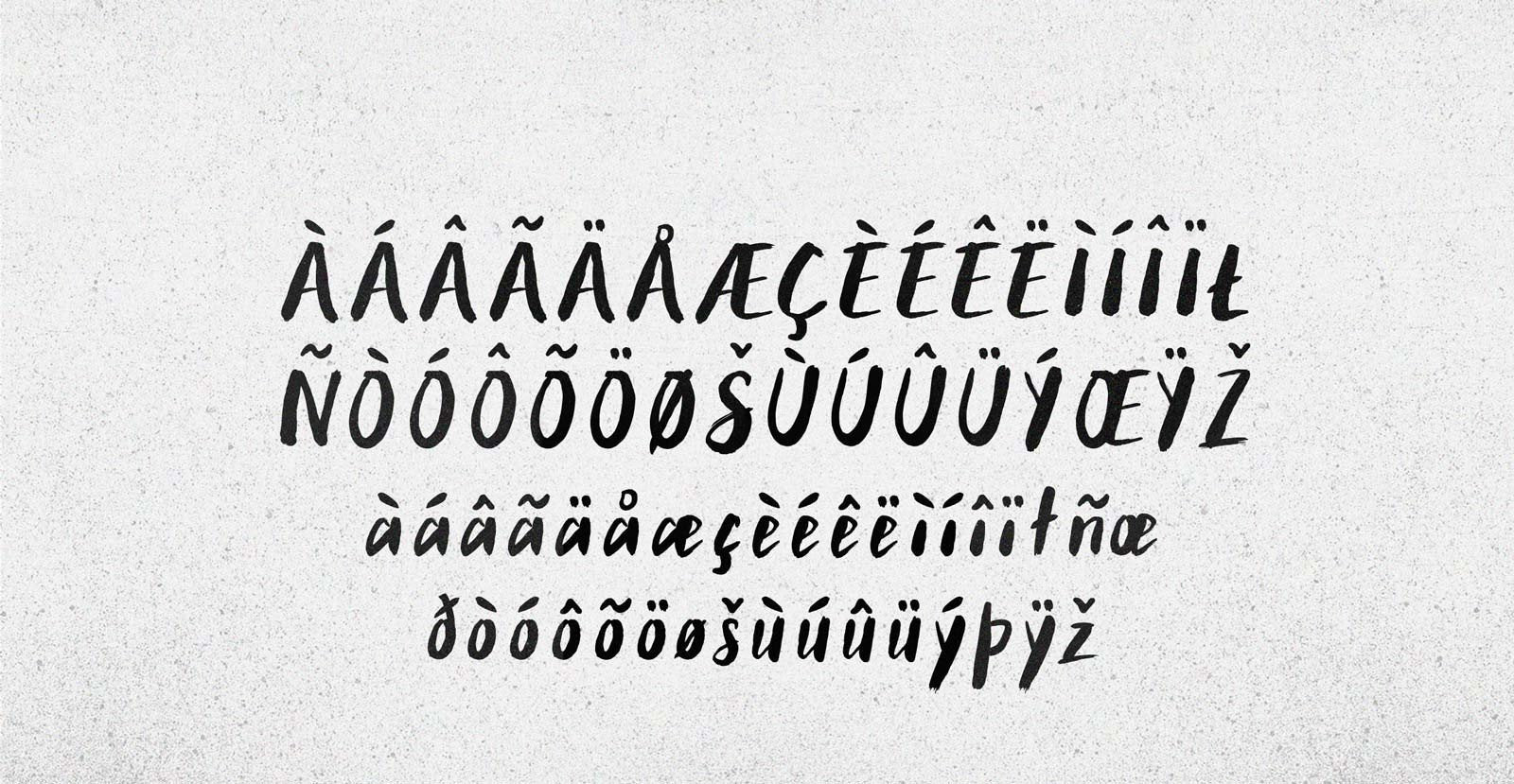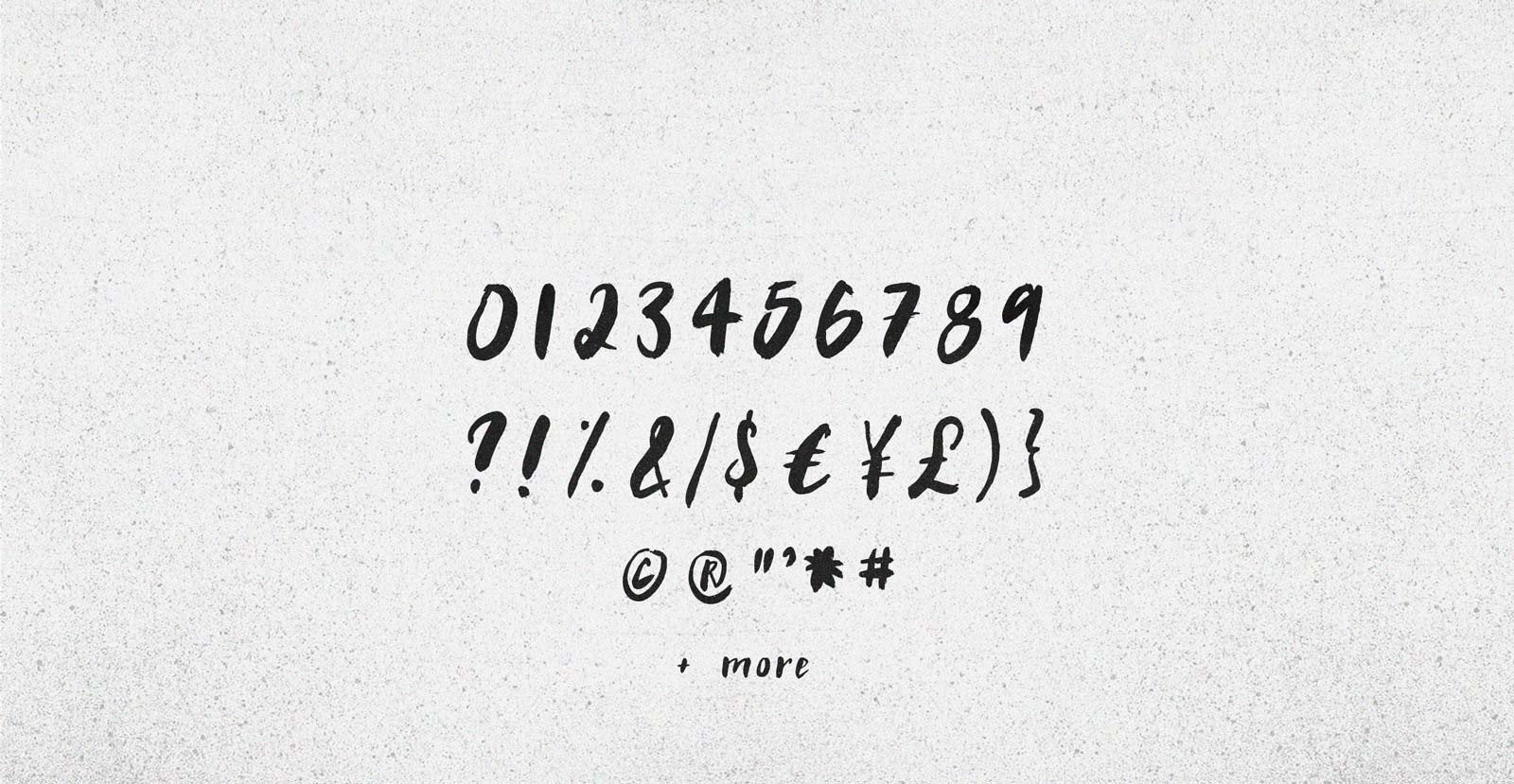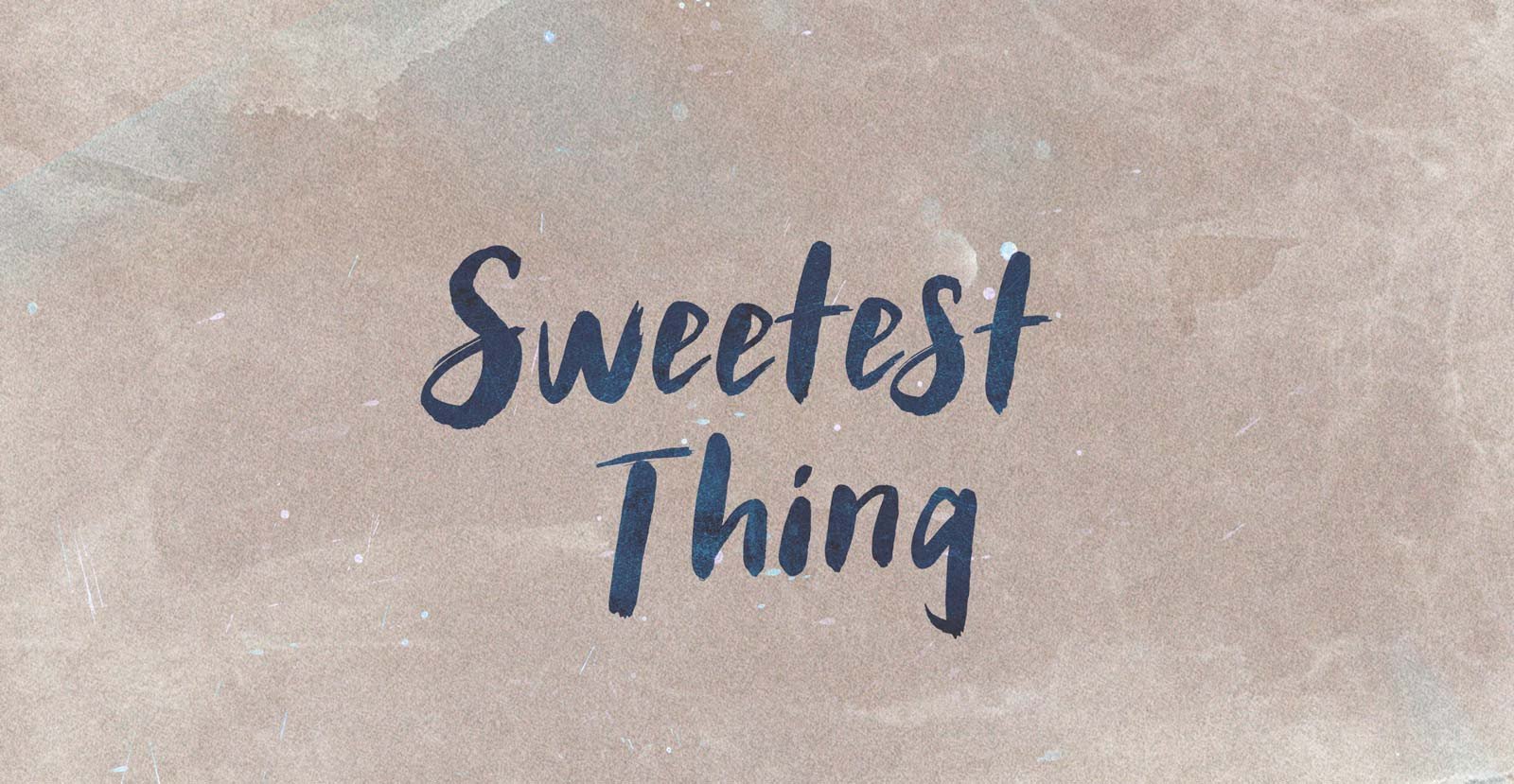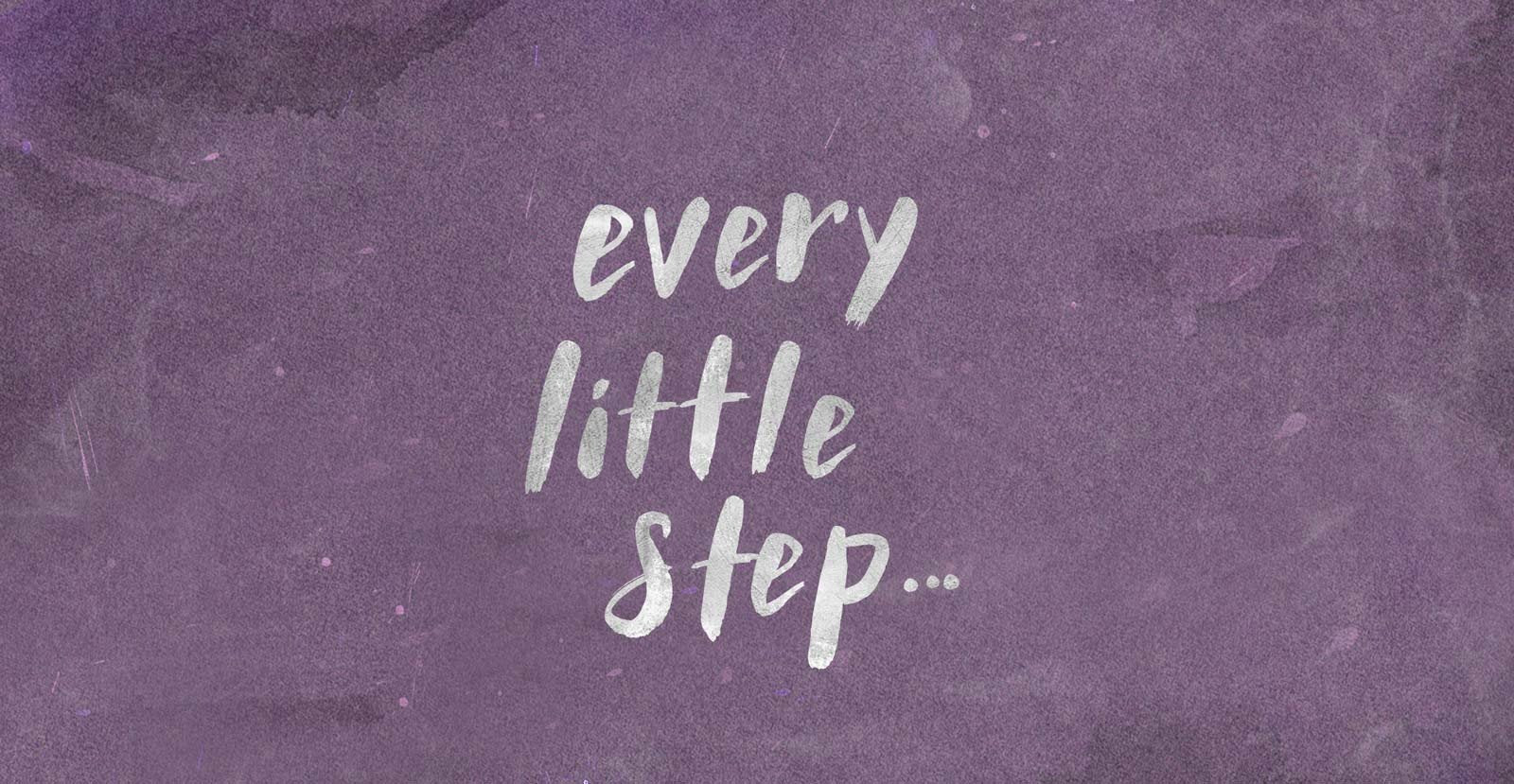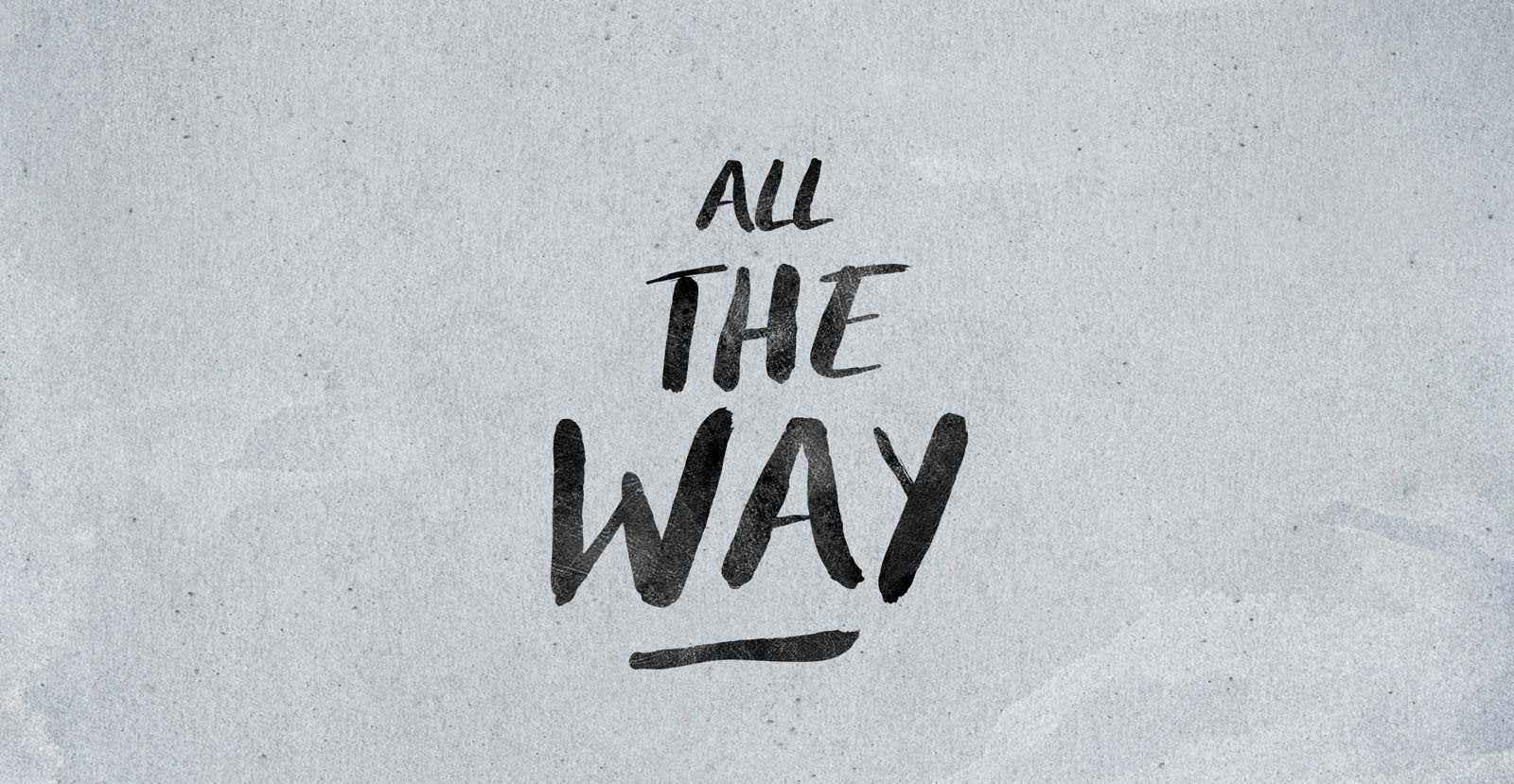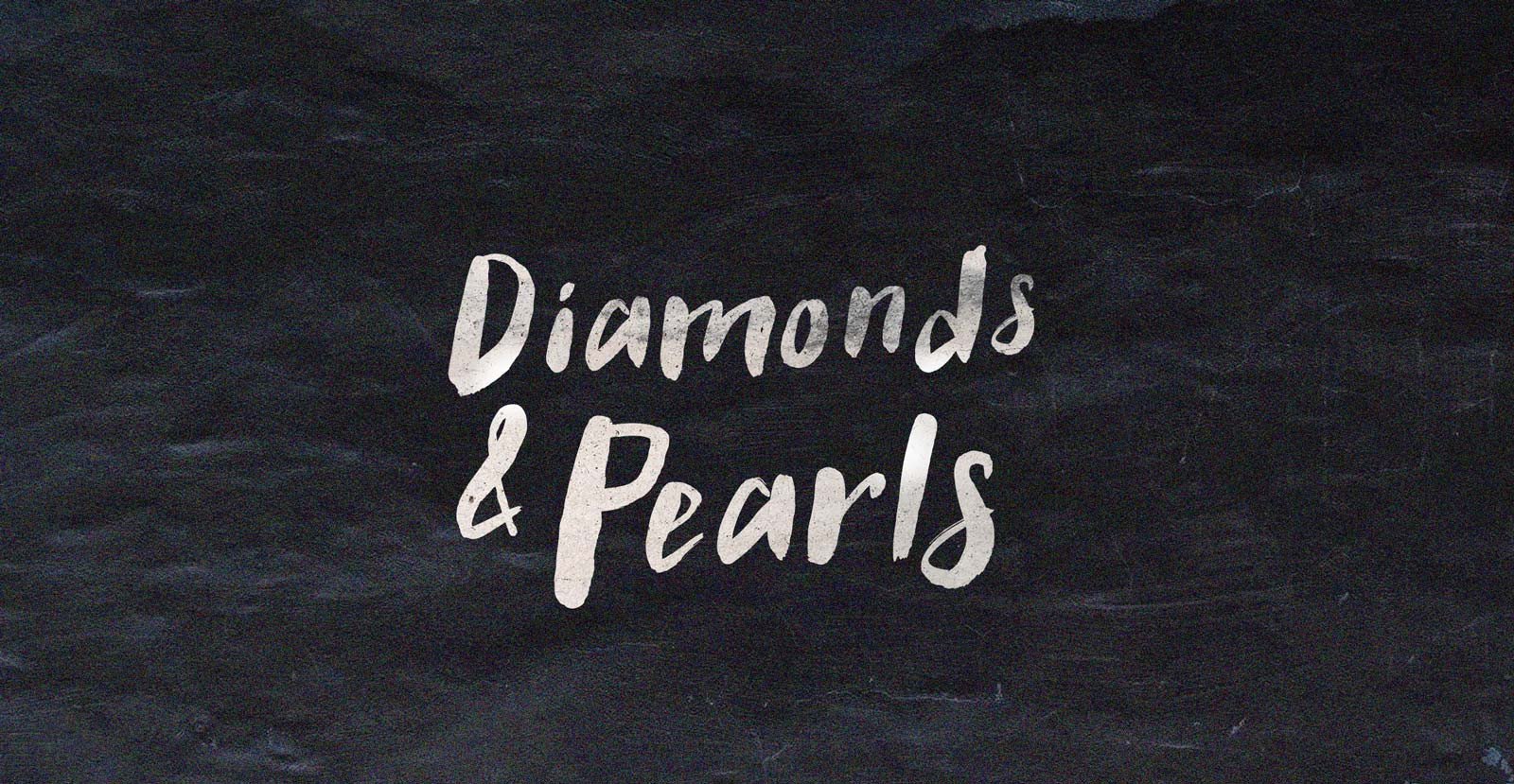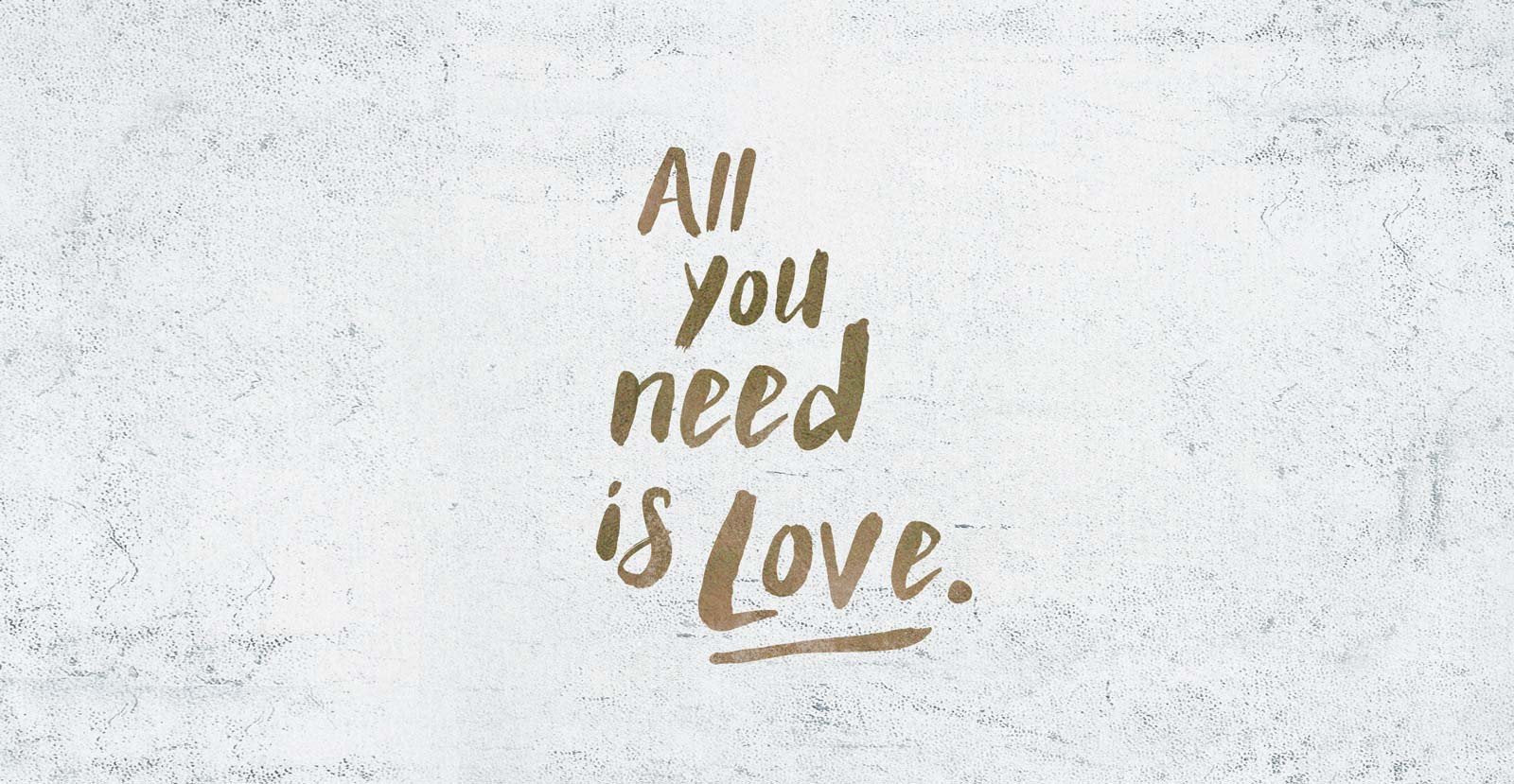
After Hours
A driving rain beat against my windshield as I pulled up across the street from the garage. The flickering light of an arc welder inside painted my car a cold blue. After Hours, my mark emerged, silhouetted in the doorway. I killed my cigarette as he lit his.